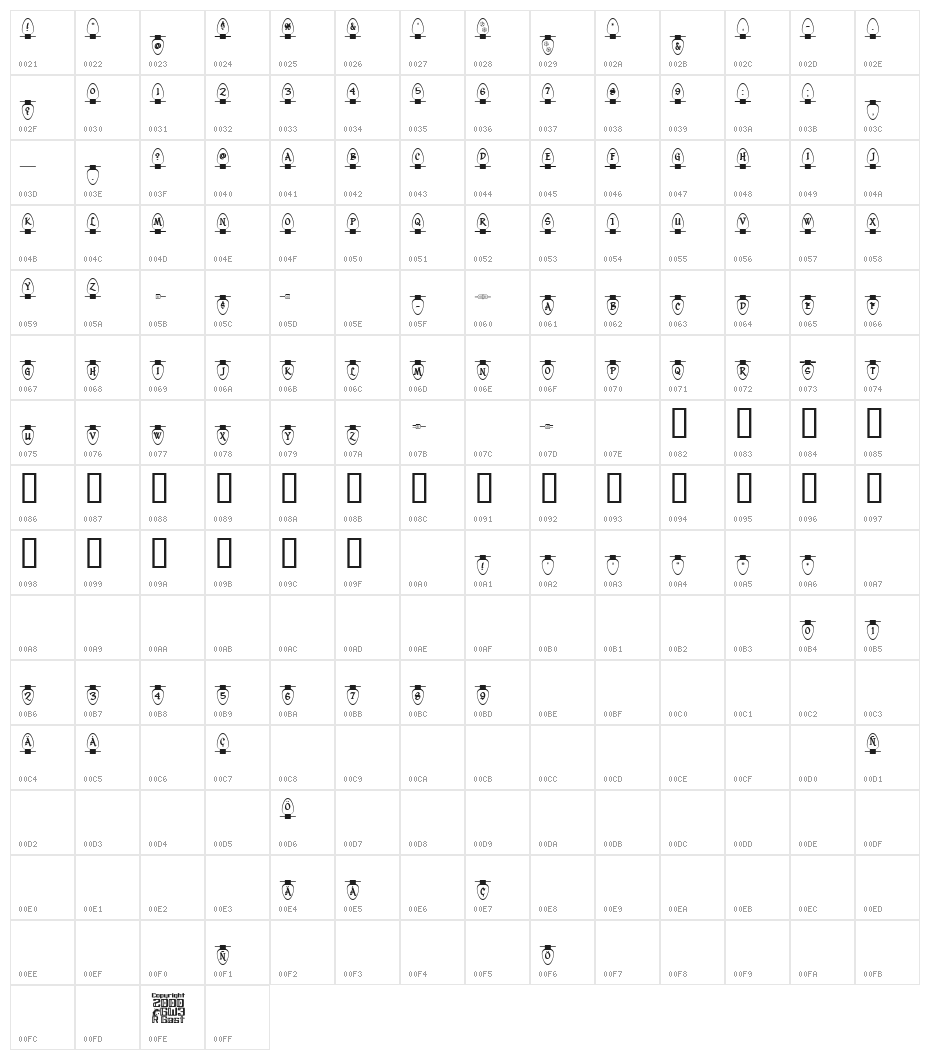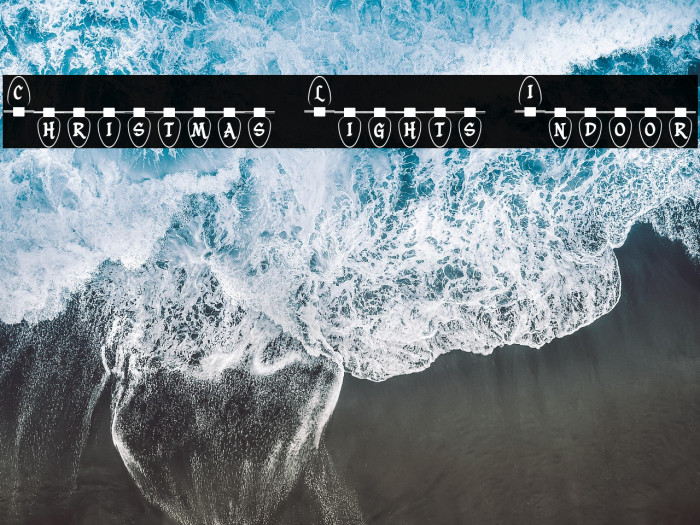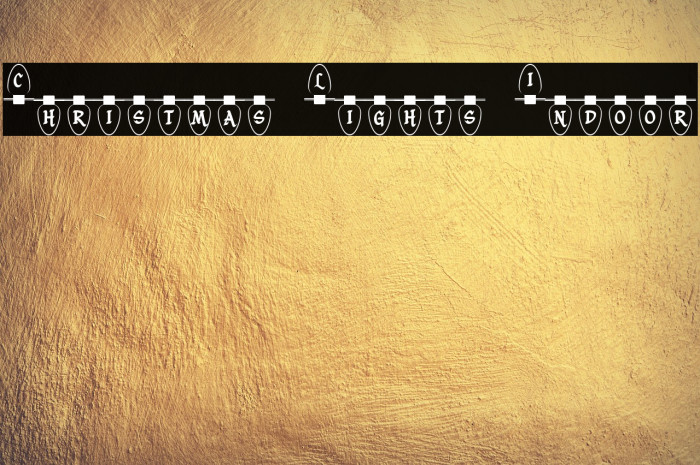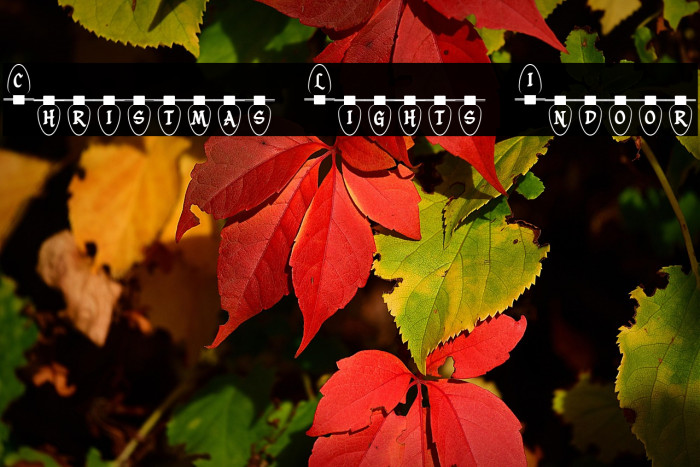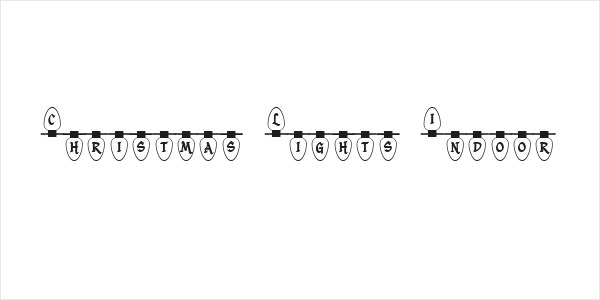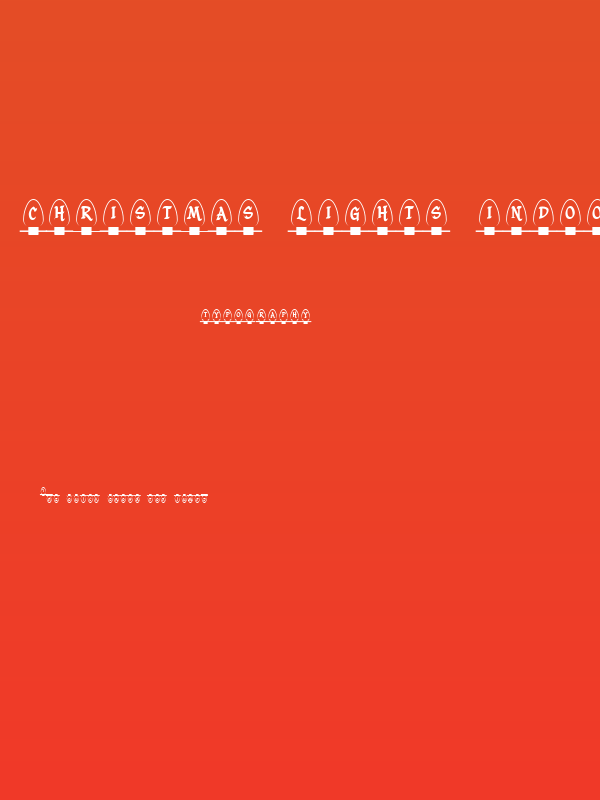
Christmas Lights Indoor Font
Christmas Lights Indoor Description
This decorative font is designed to resemble Christmas lights, with each character encased in a bulb shape. The letters are bold and playful, featuring a whimsical style that evokes a festive atmosphere. The uppercase and lowercase letters, along with numbers and special characters, are all presented within these bulb outlines, creating a cohesive and thematic appearance. The font is perfect for holiday-themed projects, offering a unique and eye-catching design that stands out. The character spacing is normal, ensuring readability while maintaining its decorative charm. The contrast in stroke thickness is medium, providing a balanced look that is both fun and functional.
| Proposed Projects | Ideal for holiday cards, festive banners, Christmas party invitations, and seasonal marketing materials. |